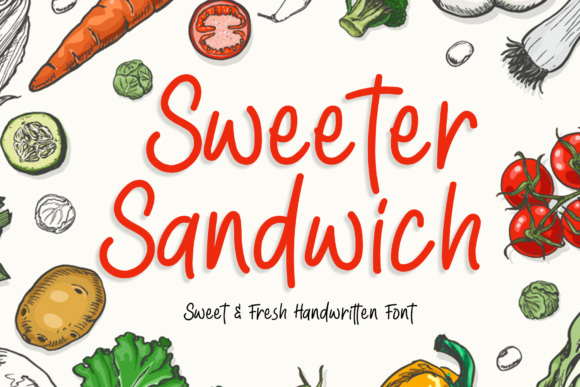
Sweeter Sandwich Font
Feast your eyes on Sweeter Sandwich, a handwritten font that exudes playful charm and a touch of whimsy. Step into a world where creativity dances on the page, and words come alive with a vibrant energy. Embrace the magic of Sweeter Sandwich and let your imagination soar.
Crafted with meticulous care by the talented MJB Letters, Sweeter Sandwich is more than just a font; it's an experience. Every stroke, every curve, every loop is designed to evoke a sense of wonder and delight. With its playful personality, Sweeter Sandwich is perfect for adding a touch of magic to any creative project.
Picture this: you're designing a whimsical invitation for a child's birthday party. The words "You're Invited" leap off the page in Sweeter Sandwich, inviting guests into a world of fun and laughter. Or perhaps you're creating a heartwarming poster for a local bake sale. The words "Sweet Treats Await" dance across the poster in Sweeter Sandwich, enticing passersby with its irresistible charm.
The possibilities are endless with Sweeter Sandwich. Whether you're a seasoned designer or just starting out, this font is the perfect tool to bring your creative vision to life. Its versatility knows no bounds, making it suitable for a wide range of projects, from playful social media graphics to elegant wedding invitations.
Don't settle for ordinary fonts that blend into the background. Choose Sweeter Sandwich and let your words shine with personality. Its playful spirit is sure to captivate your audience, leaving a lasting impression that they won't soon forget.
Dive into the world of Sweeter Sandwich today and unleash your creativity. Experience the joy of effortless design, where your words become works of art. Let Sweeter Sandwich be your guide on this enchanting journey, where imagination reigns supreme.